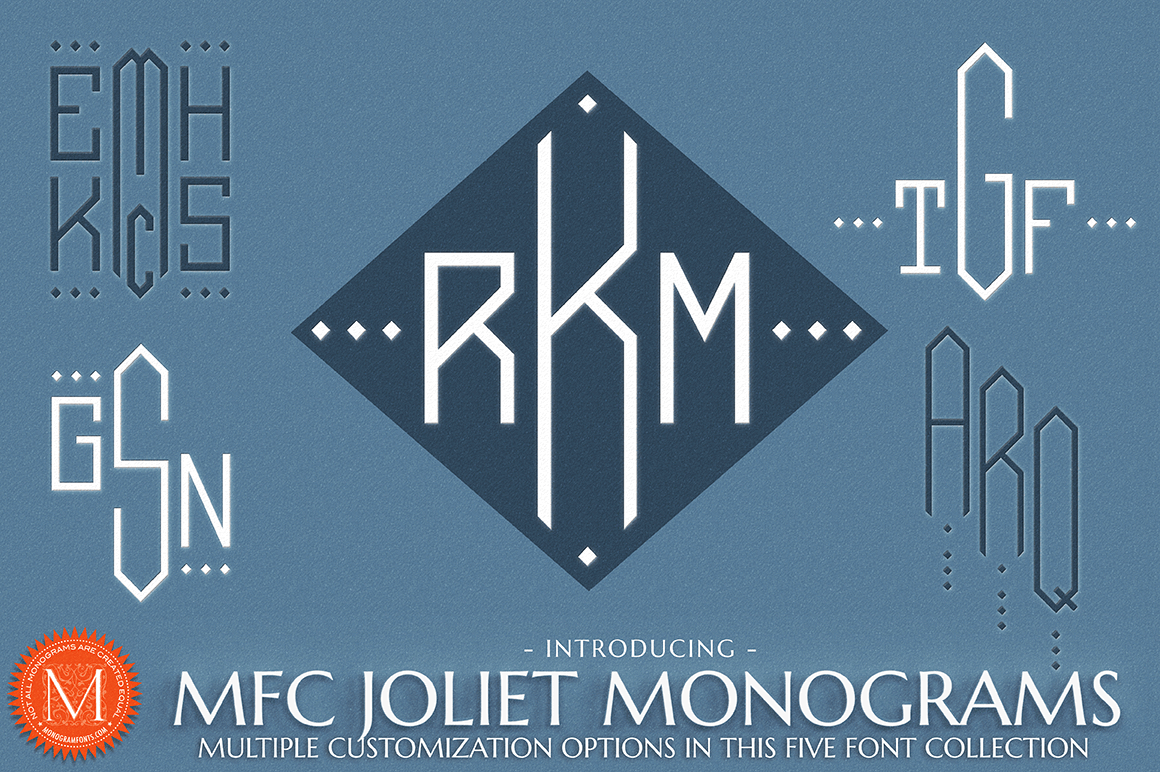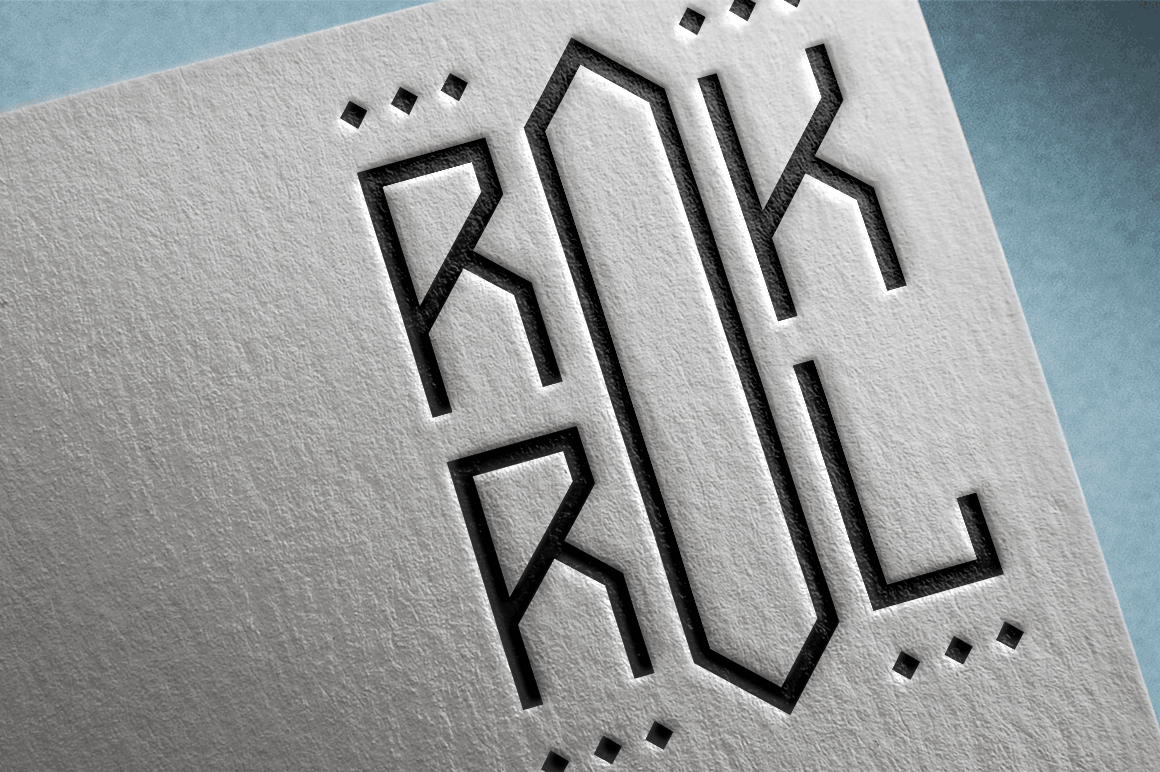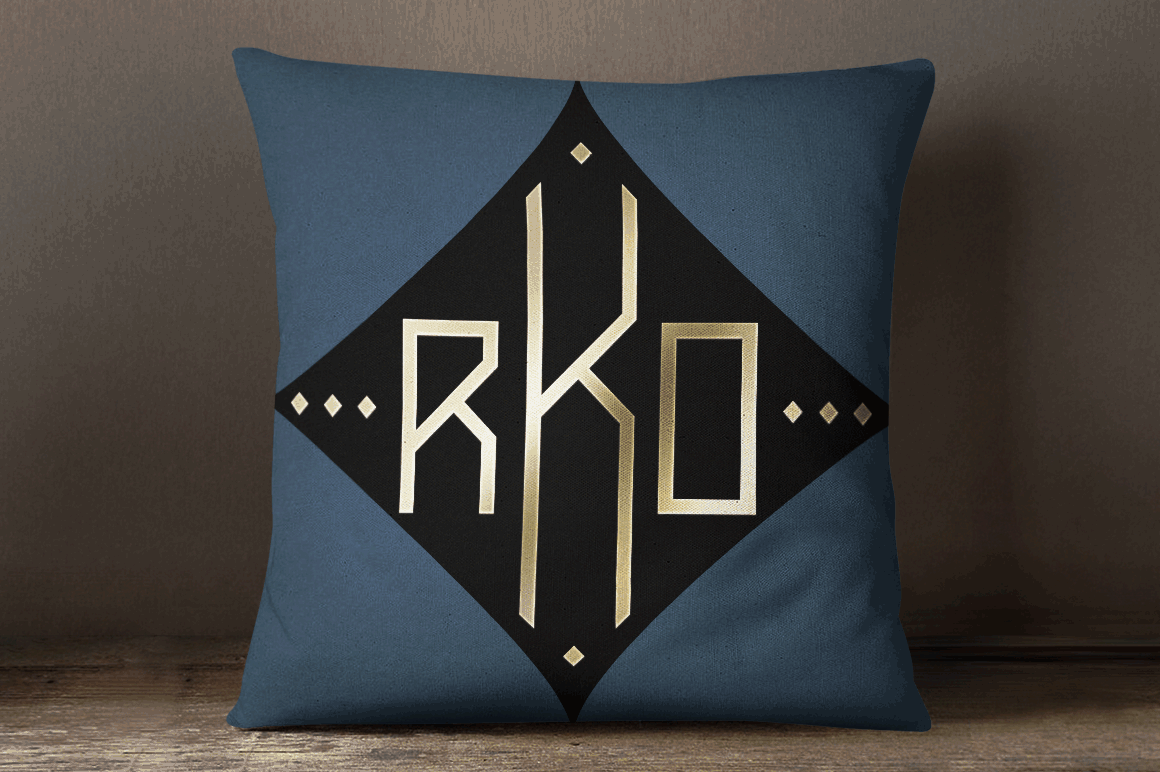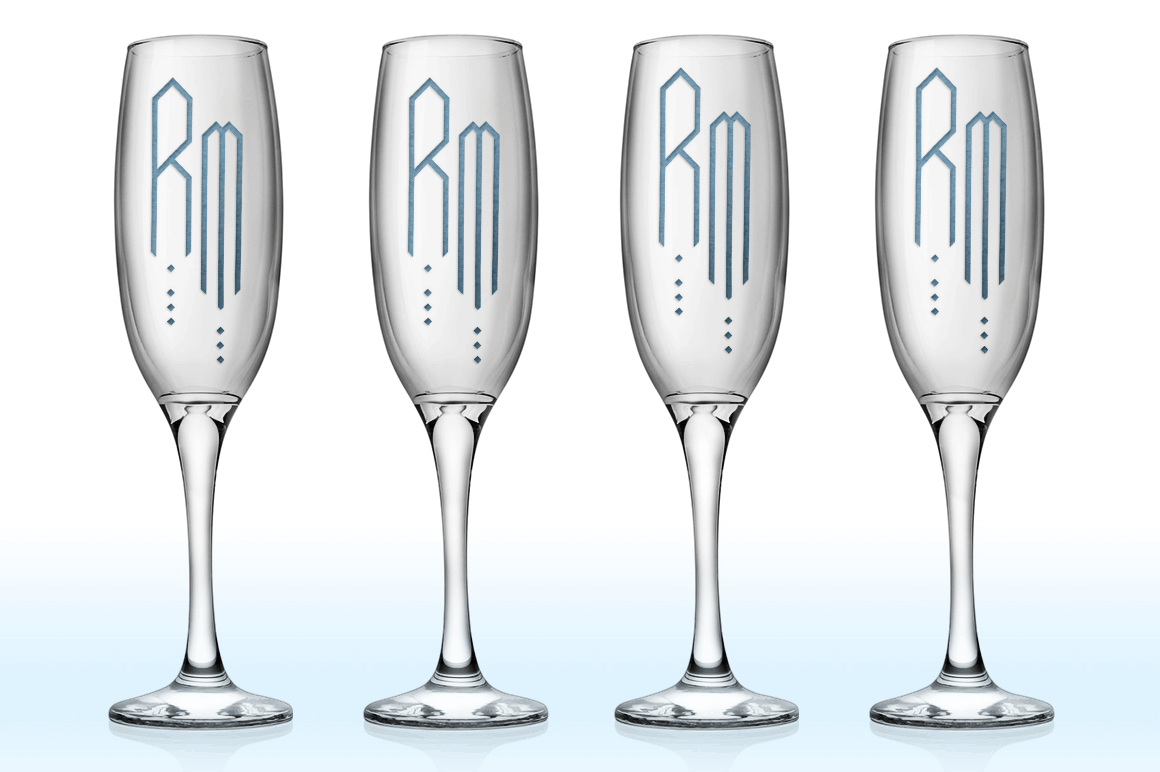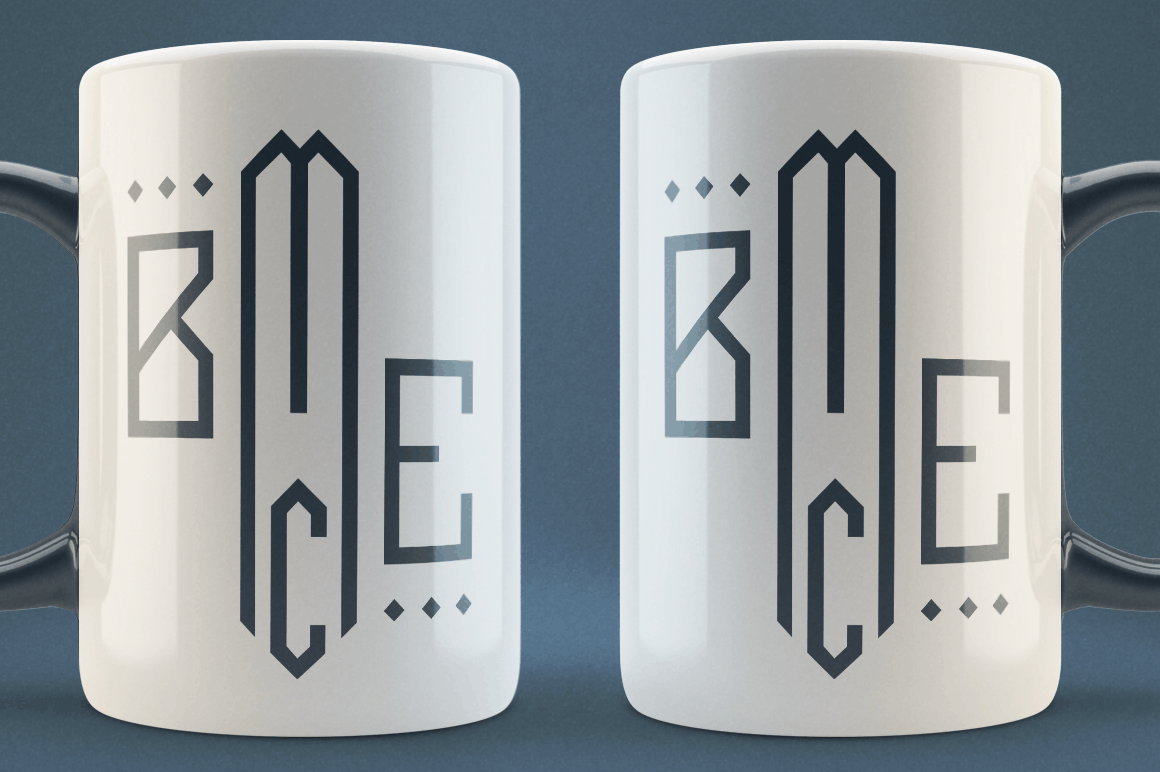
MFC Joliet Monograms
Font Family by Monogram Fonts Co
The source of inspiration for the MFC Joliet Monograms Collection is a vintage McCalls Kaumagraph Transfer that was capable of 5 styles of monograms. We've faithfully remastered these in each of the five typefaces in this collection, and in doing so, expanded the customization options further.